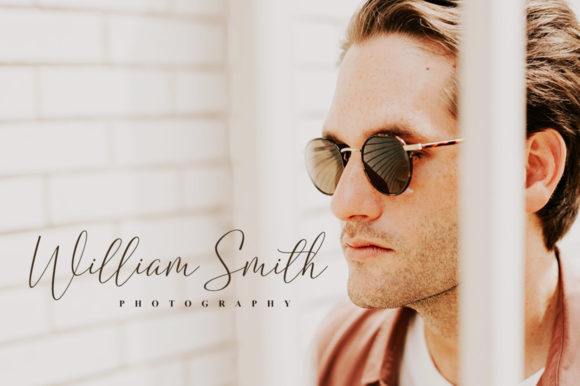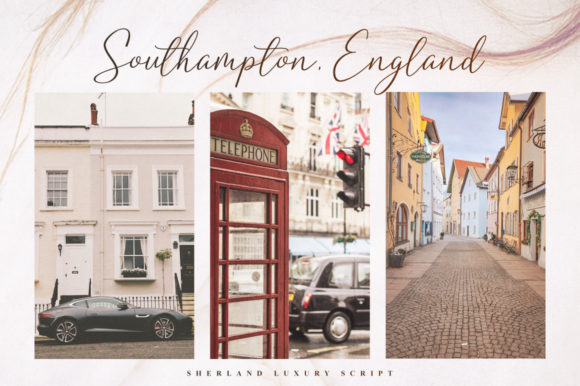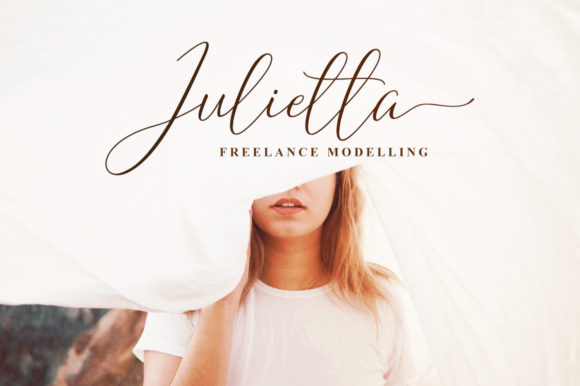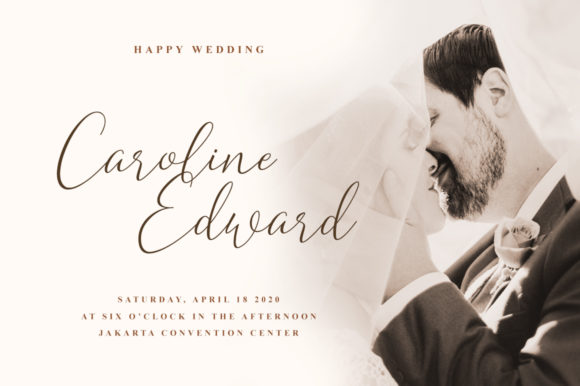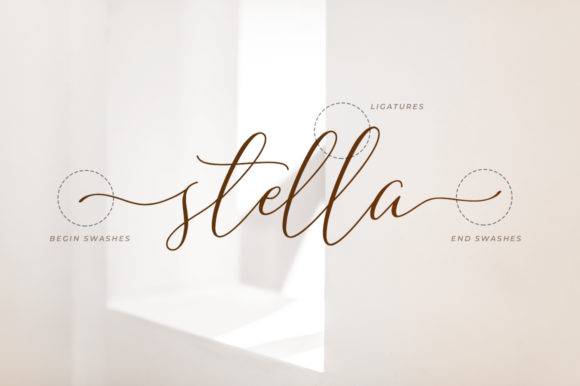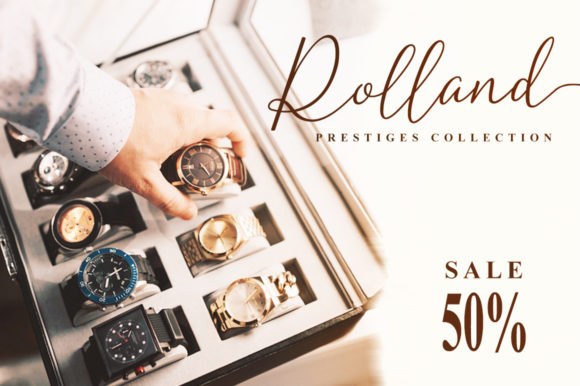
Introduction to Sharland Font
Have you ever been working on a creative project, pouring your heart and soul into it, only to be held back by the limitations of your font choices? You envision a beautiful, elegant design, but the fonts just don’t seem to fit the bill. This is where the Sharland Font comes in – a stunning, handwritten font that will elevate your designs to new heights.
| 👤 Author | Heinzel Std |
With its flowing lines, gorgeous glyphs, and stunning alternates, the Sharland Font is a game-changer for designers. Not only is it PUA encoded, making it easy to access all of its features, but it also boasts a varying baseline and smooth lines that will add a touch of sophistication to any project. Whether you’re working on a branding project or creating a free download for your design resource, the Sharland Font is the perfect choice for high-quality designs.
Key Features of Sharland Font
- Unique, stylish font with a transparent background for versatile usage
- Designed to be highly legible, making it perfect for body text, titles, and headings
Honest Review: Sharland Font
I recently came across the Sharland Font, and I must say it’s a lovely addition to any creative project. The font’s elegant script style makes it perfect for designing wedding invitations, menus, or any other material where a touch of sophistication is required.
- ✨ Elegant script style suitable for various creative projects
- ✨ High quality and smooth font rendering
- ⚠️ Limited character set, which may not be suitable for extensive text content
- ⚠️ Not ideal for digital displays or low-resolution printing
Overall, the Sharland Font is a beautiful and useful addition to any designer’s toolkit. Its elegant style and high quality make it a great choice for various creative projects, and its free download availability makes it an excellent design resource. However, it’s essential to be aware of its limitations and use it accordingly.
Sharland Font
Common Use Cases for Sharland Font
The Sharland Font is perfect for various creative projects, including logos, business cards, social media graphics, and presentations. Its high quality and transparent background make it a versatile design resource for any project.